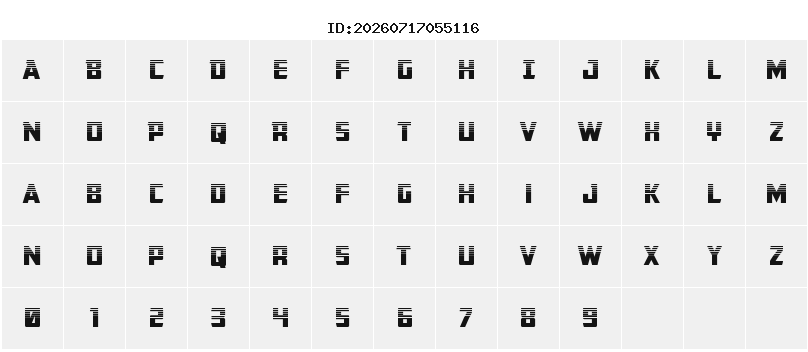
About Buchanan Halftone.ttf
Buchanan Halftone.ttf is a modern, elegant sans-serif font designed for ultimate readability and visual harmony. Perfect for branding, headlines, web design, and print materials.